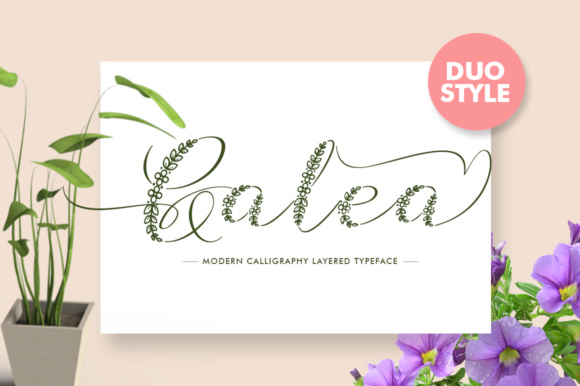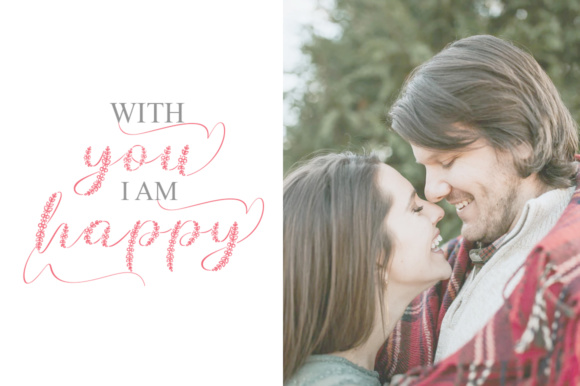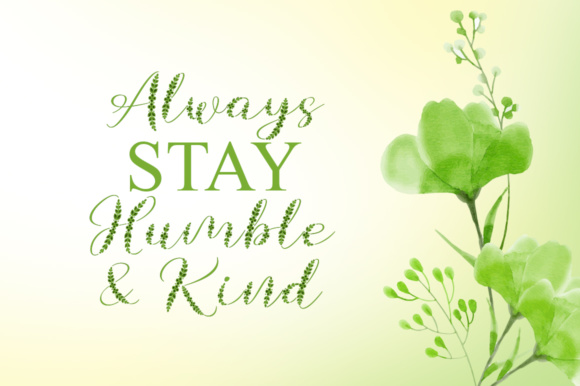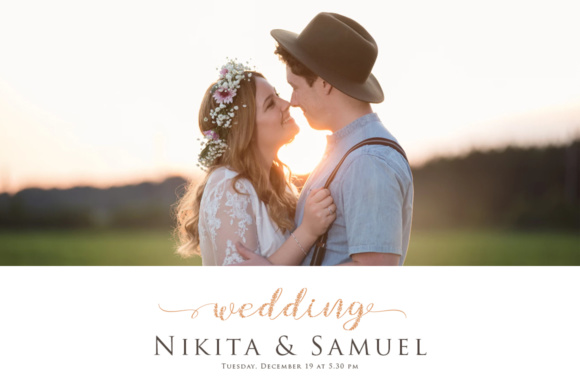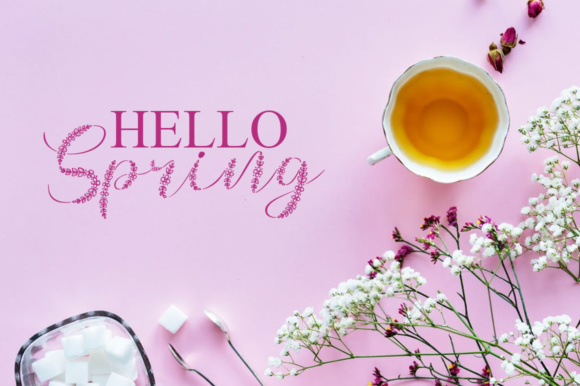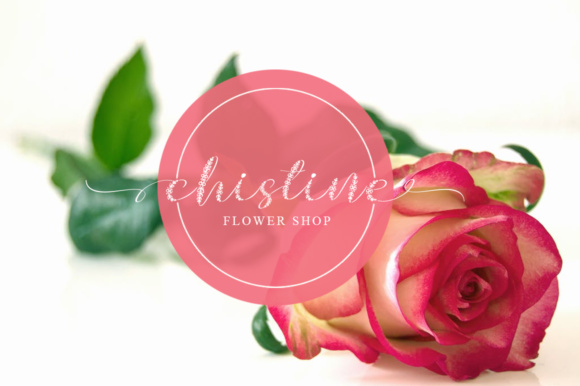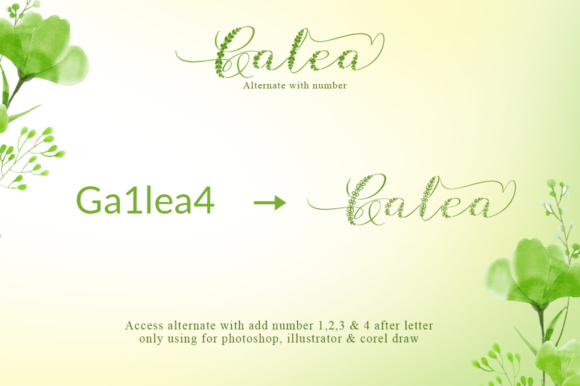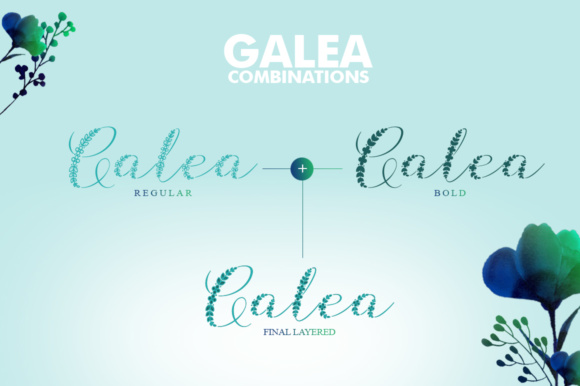
Galea Script Font
About Galea Script Font
Galea is a new, fresh, handmade calligraphy font. Galea comes in two styles, regular & bold. It is perfect for wedding invitations, events, cards, displays, logos, greeting cards, and more!